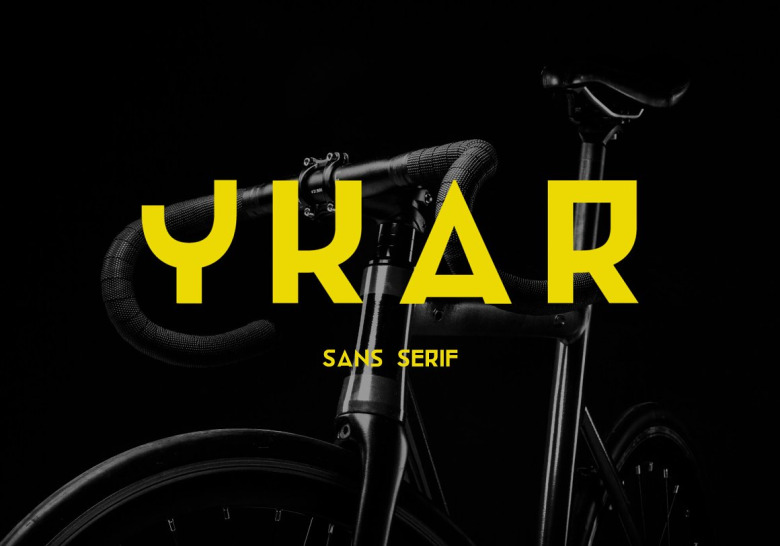
Ykar Font
Ykar Font is a modern and unique futuristic font inspired by geometric shapes. Made from font designer named Emmeran Richard. It can easily be matched to an incredibly large set of projects and use it for movie posters, flyers, game logo, esport logo, logotype, packaging and much more!